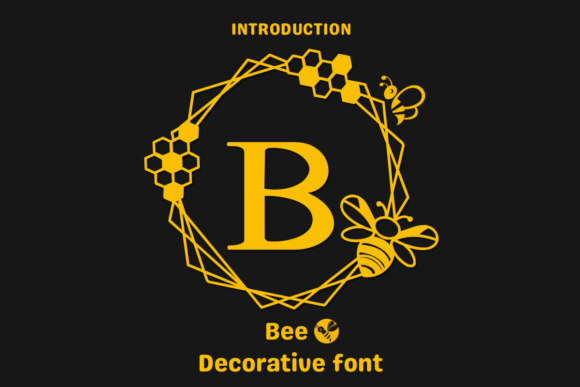
A Buzzworthy Discovery: Unveiling the Magic of Bee Font
Have you ever been strolling through a garden on a warm summer day, surrounded by the sweet scent of blooming flowers and the gentle hum of busy bees? For many creatives, this serene scene sparks a flood of ideas and inspiration. For designers, it might be the perfect moment to discover a new font that captures the essence of nature’s wonders.
Enter Bee Font, a charming decorative font that embodies the playful spirit of its tiny insect inspirations. With its intricate bee and honeycomb motifs, this font is a delightful blend of elegance and whimsy, perfect for crafting eco-friendly branding, children’s book covers, nursery art, or themed invitations. For designers, Bee Font offers a unique opportunity to add a touch of natural charm to their projects, making it a valuable addition to any design toolkit.
Bee Font Key Features
• Unique Characteristics: Bee Font features a unique, hand-drawn design with intricate details and textures, giving it a distinctive and eye-catching appearance.
Bee Font Review
I recently had the chance to work with the Bee Font, and I’m excited to share my thoughts with you. ✨ One of the things that stood out to me was the unique, playful aesthetic of the font. It’s perfect for projects that need a touch of whimsy and fun. The Bee Font is great for headers, titles, and other text elements where you want to grab the user’s attention.
• ✨ Unique and playful aesthetic
• ✨ Great for headers, titles, and other text elements
• ✨ Supports a wide range of languages
However, I did encounter some limitations when working with the Bee Font. ⚠️ One of the main issues was the lack of flexibility in terms of customization. While it’s great for a specific aesthetic, it can be difficult to make adjustments to suit different design needs. Additionally, the font may not be suitable for projects that require a more formal or professional tone.
• ⚠️ Limited customization options
• ⚠️ May not be suitable for formal or professional projects
Overall, I think the Bee Font is a great choice for designers looking to add some personality to their projects. While it may not be perfect for every situation, it’s a fun and playful option that can add a lot of visual interest to a design.
Bee Font is ideal for:
• Creating eye-catching headlines and titles.
• Adding a unique touch to illustrations and graphics.
• Adding visual interest to presentations and documents.
Alternatives to “Bee Font” for Designers
Lobster is a fun, casual script font that is perfect for creating a playful and friendly atmosphere. It is ideal for use in advertising, social media, and other digital applications where a modern and trendy look is desired. Lobster is a great alternative to Bee Font for designers who want to add a touch of whimsy to their designs.
Comparison to Bee Font: While both fonts have a playful and casual feel, Lobster is more modern and trendy, whereas Bee Font has a more vintage and nostalgic vibe.
Great Vibes is a beautiful, elegant script font that is perfect for creating a sophisticated and luxurious atmosphere. It is ideal for use in high-end branding, packaging, and other applications where a touch of elegance is desired. Great Vibes is a great alternative to Bee Font for designers who want to add a sense of sophistication to their designs.